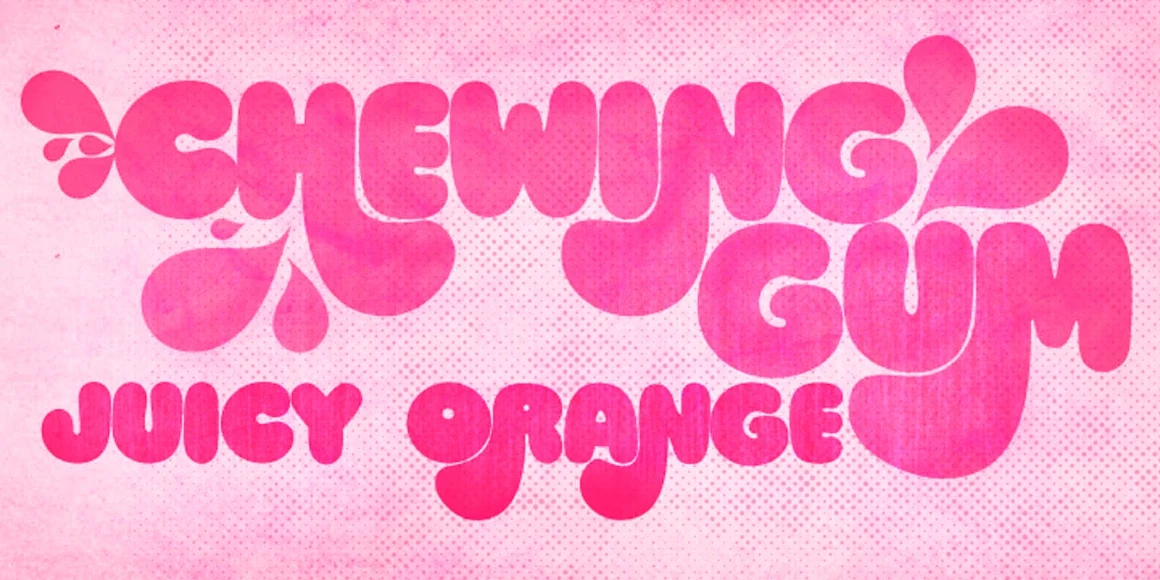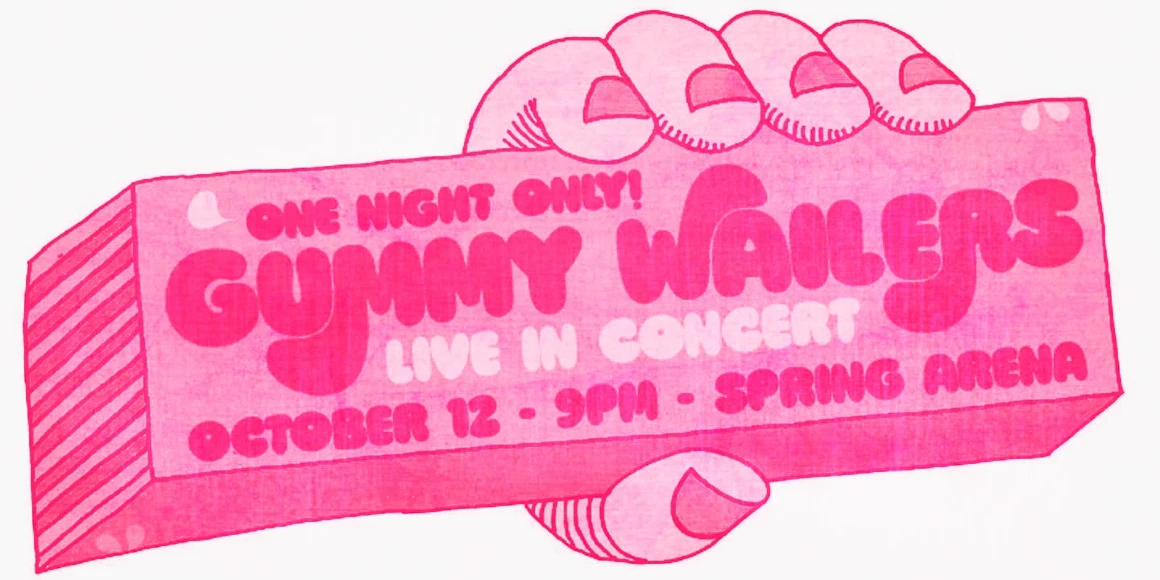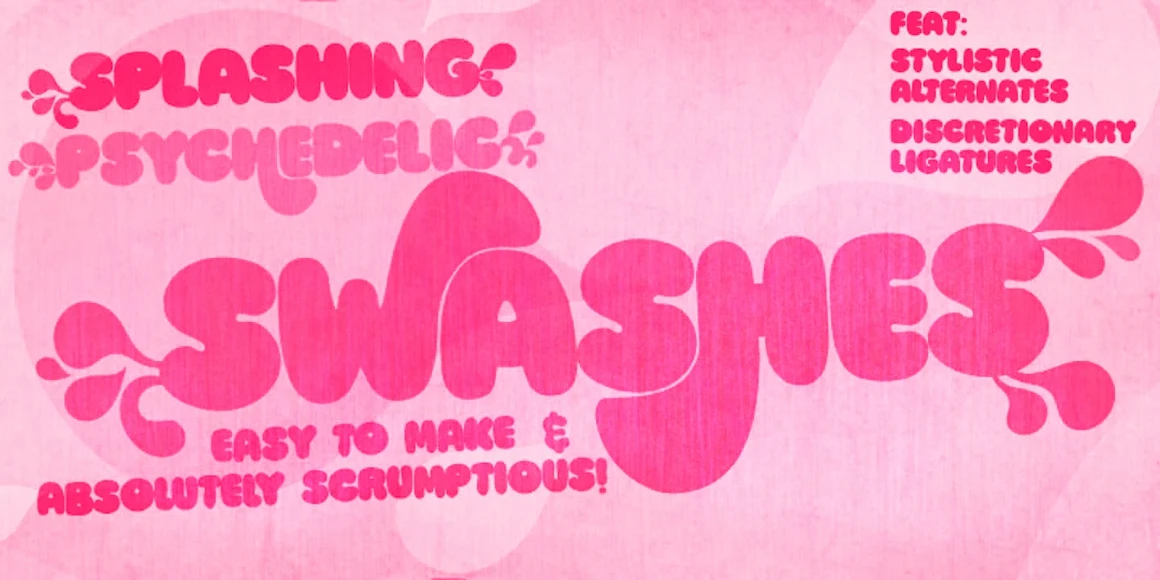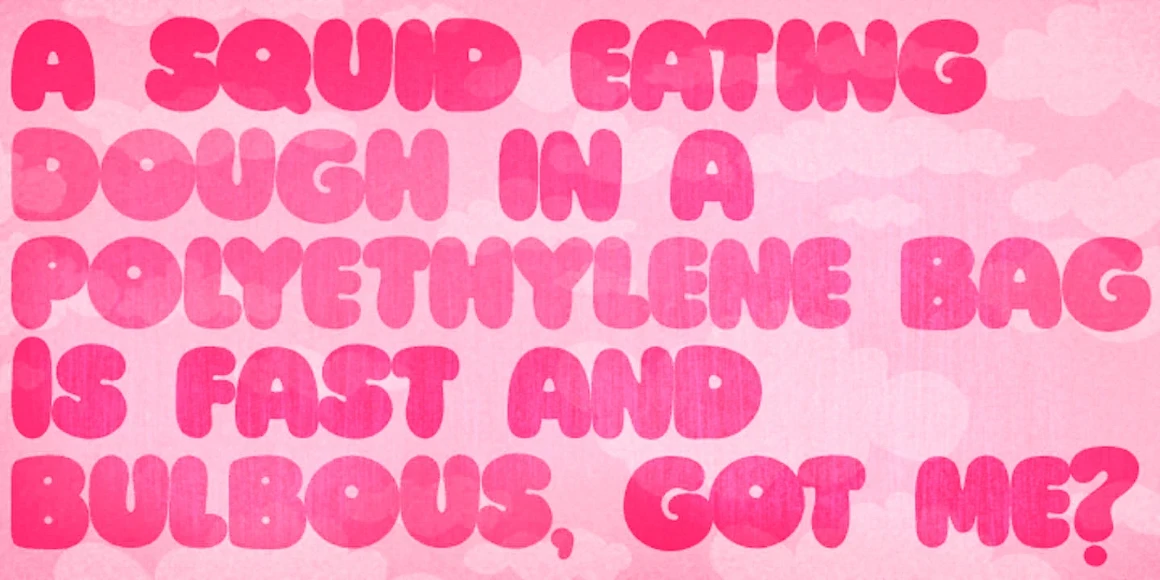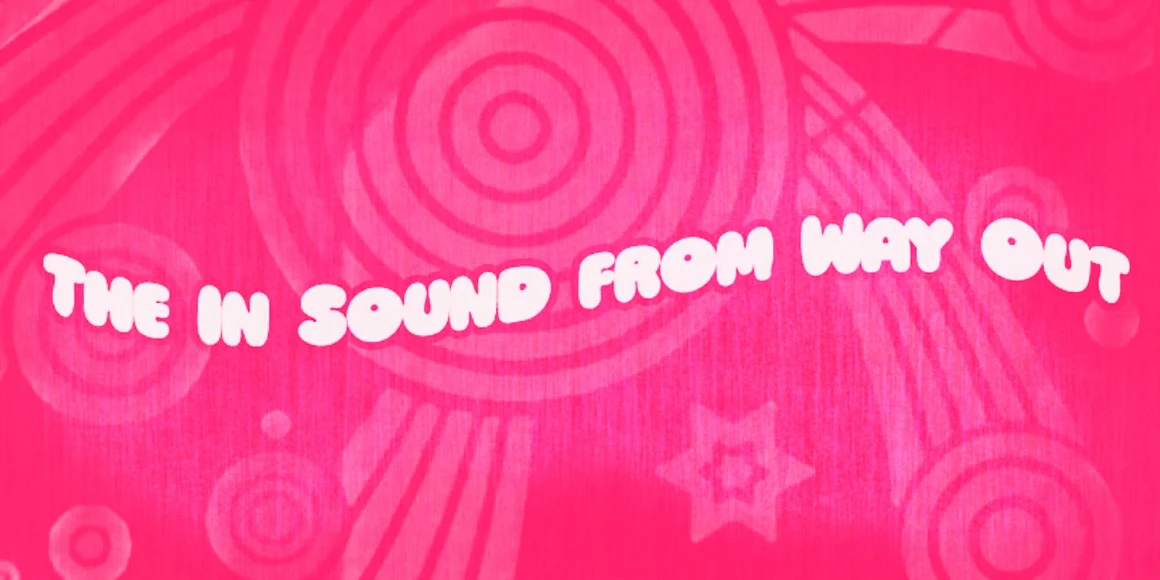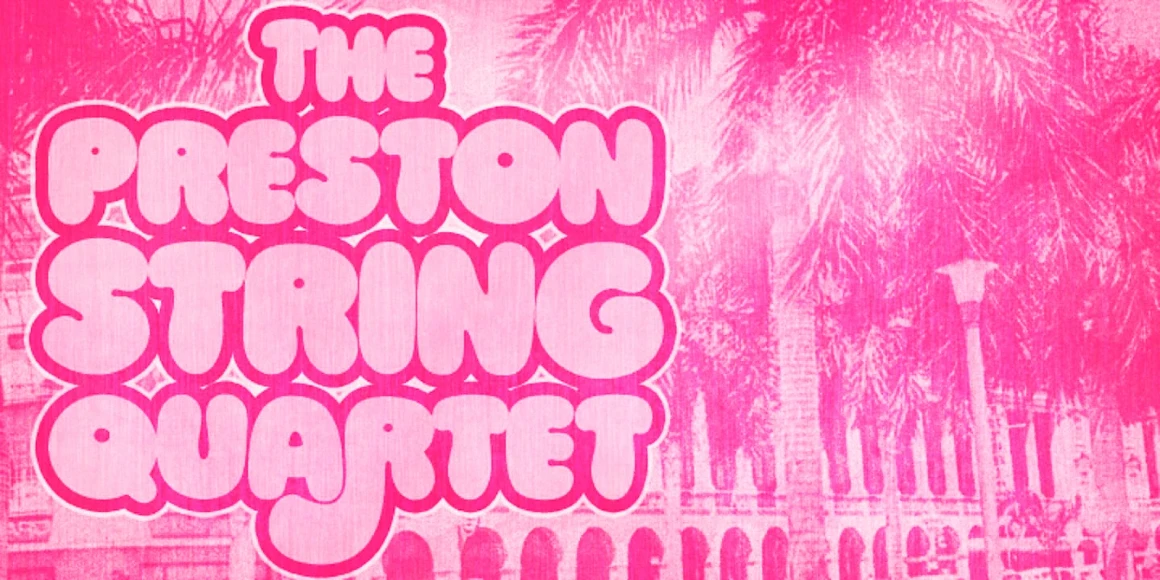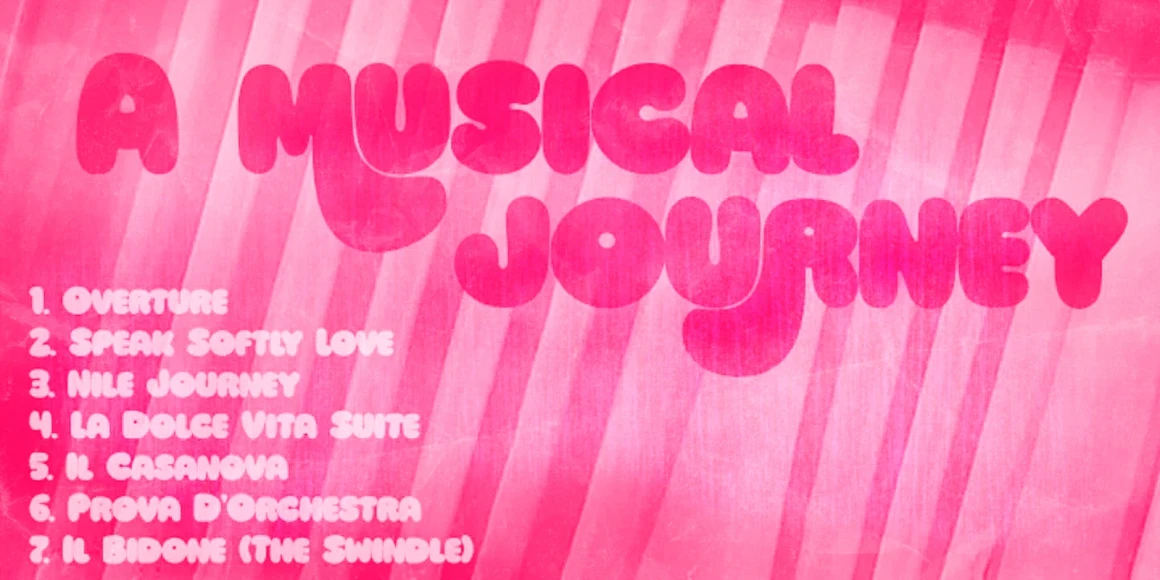
Ziclets
Ziclets Medium
Ziclets is a puffy, soft display sans serif. With oodles of juicy alternates and a soupçon of ligatures. It seems made for psychedelic projects, but it can easily crossover from kid-friendly designs to parent-approved concepts. Use it large to make a splash or small to create a more subtle statement. Either way, it will burst through the noise. Use judiciously on book covers, board games, food packaging, children’s cartoons, television titles, and circus posters.